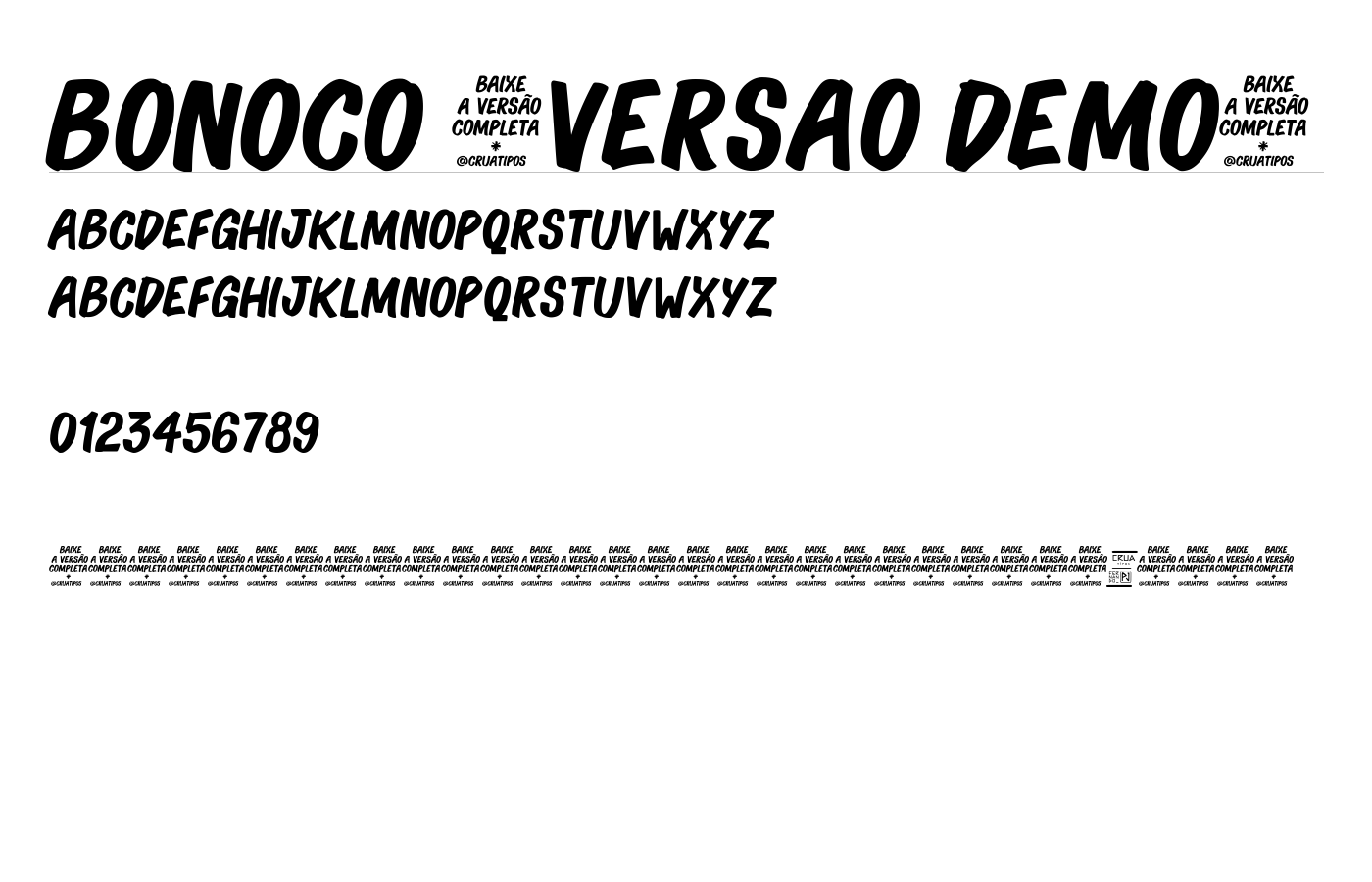
Bonoco Versao Demo is a bold and energetic sans serif font with a playful, hand-brushed style that gives it a lively, informal feel. Its slightly condensed letterforms, with pronounced curves and irregular strokes, make it perfect for eye-catching headlines, branding, and creative projects that want to convey spontaneity and friendliness. This font works best in designs where a casual, dynamic personality is needed, such as posters, logos, and social media graphics.
Bonoco [Versao Demo] Font
About Bonoco [Versao Demo] Font
| Font family | Bonoco [Versao Demo] Font |
| Designer | Fernando PJ |